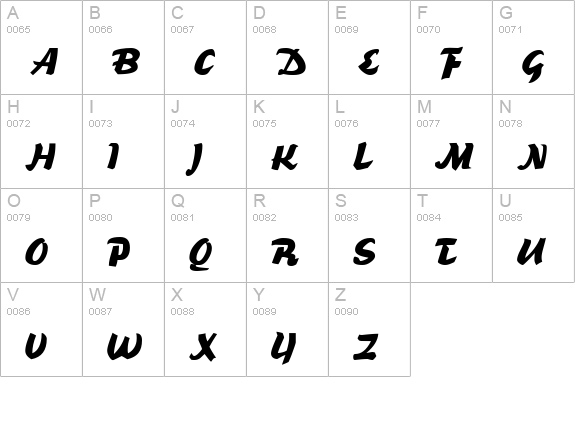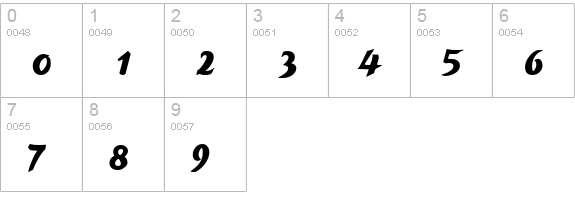
Brookscript Regular is the standard, neutral variant in the Brookscript typeface family \xE2\x80\x94 well suited to general body text, paragraphs, and standard typographic work.
Brookscript Regular font is a beautifully crafted typeface that exudes elegance and sophistication. With its stylish and modern design, this font is perfect for a wide range of projects, from branding to invitations to editorial design. The smooth curves and clean lines of Brookscript Regular make it both versatile and eye-catching. What's even better is that Brookscript Regular is available for free download at FontsMarket.com! This means you can easily access this stunning font and use it in your projects without any cost. Don't miss out on the opportunity to enhance your designs with the timeless charm of Brookscript Regular. Download it now and elevate your creations to the next level.